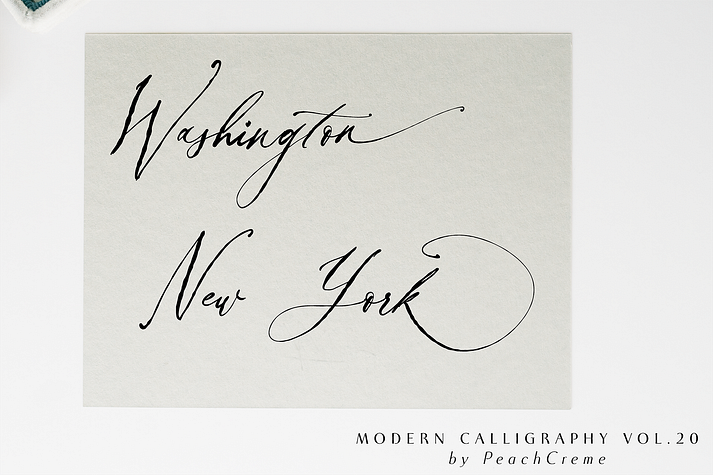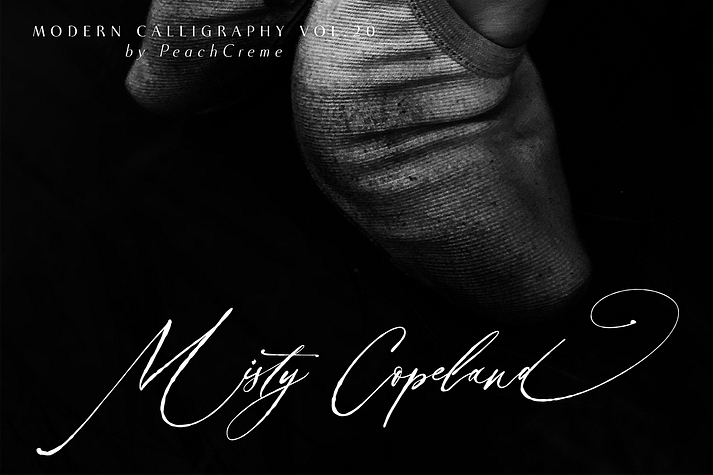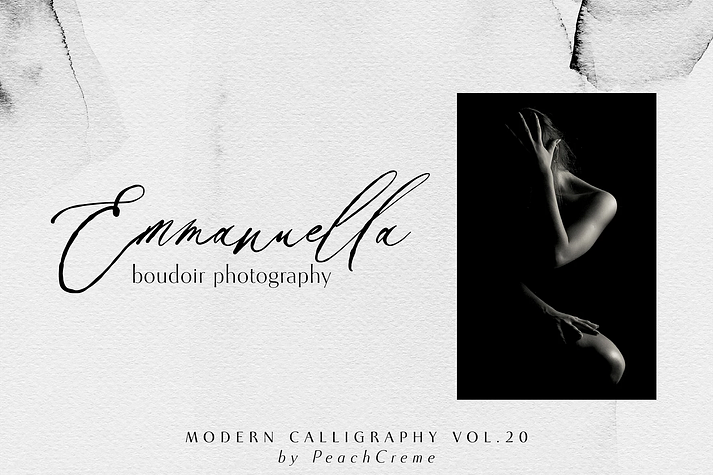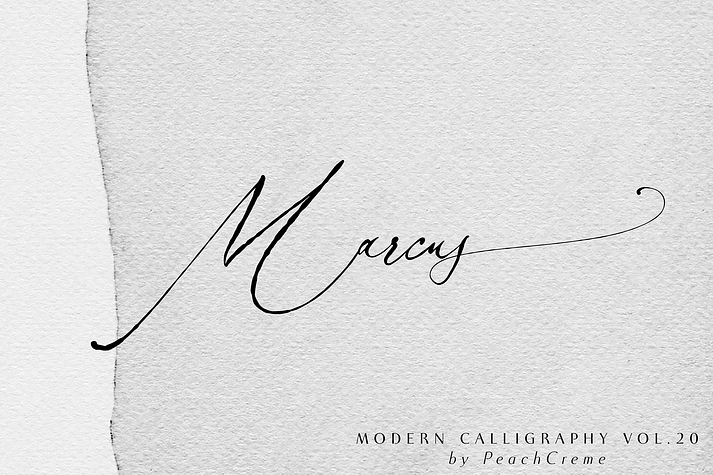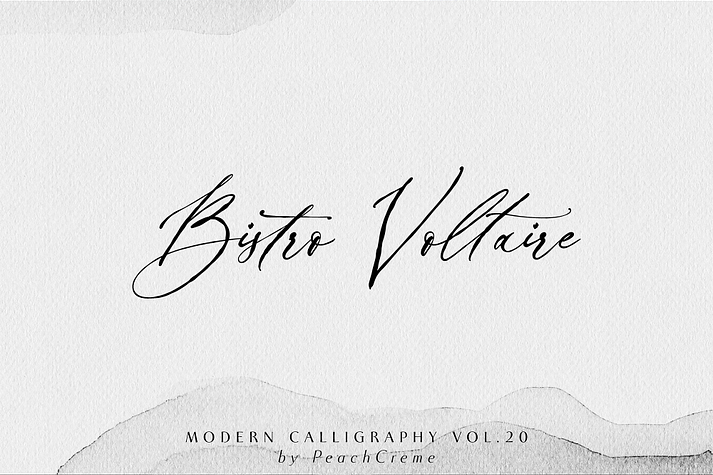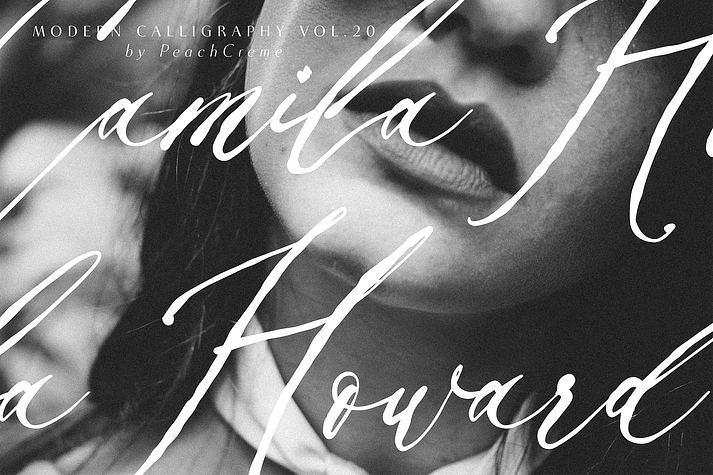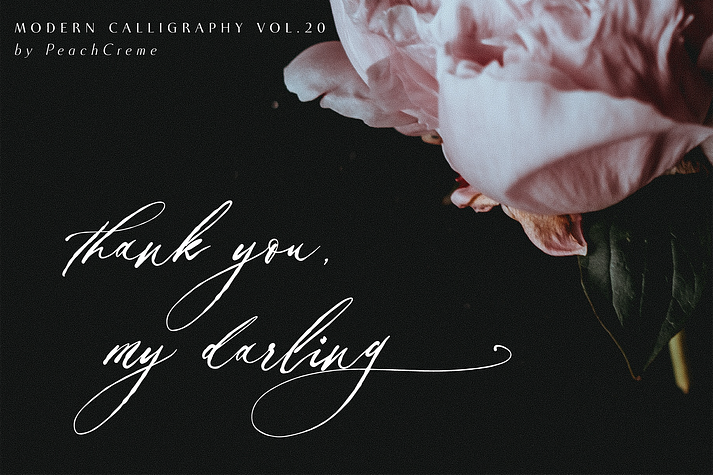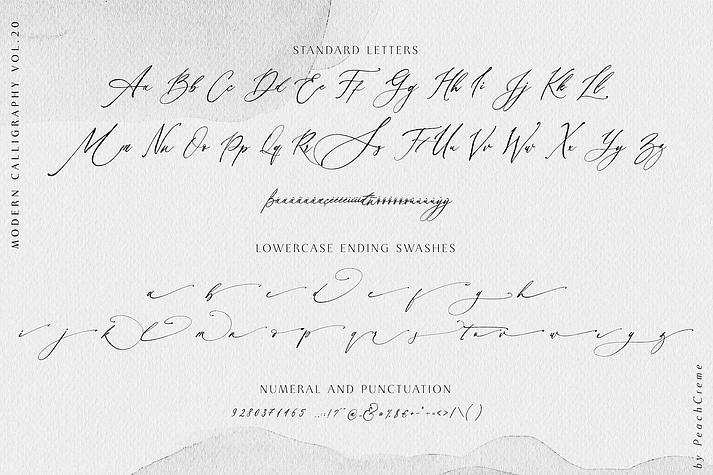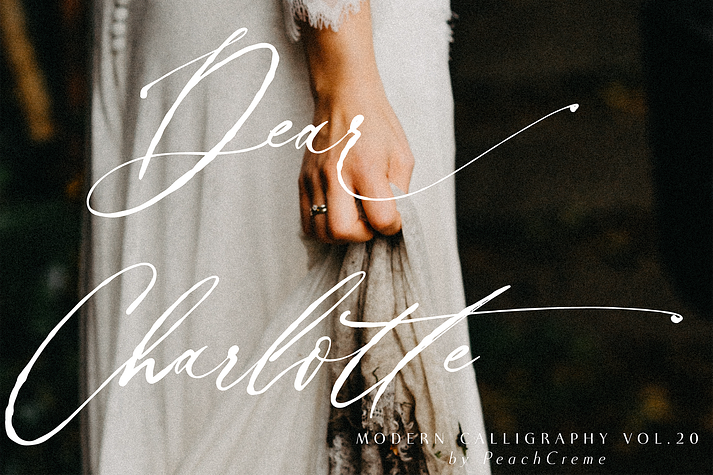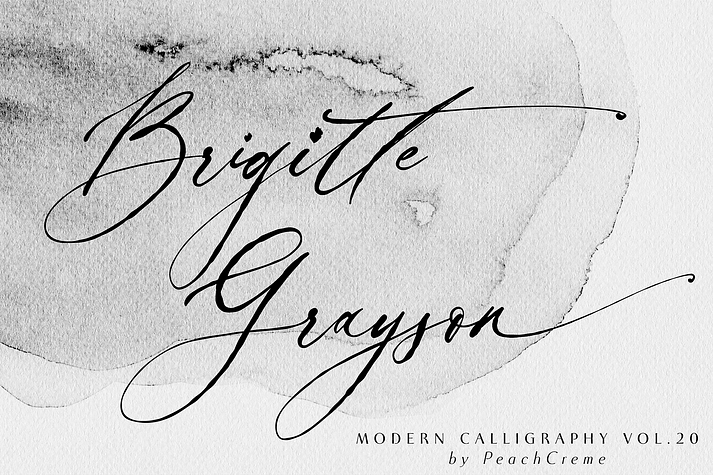
Balzak
Balzak is a script font family published by PeachCréme.
ORGANIC TYPOGRAPHY VOL.20
Ink. Messy Ink. Imperfect letters. This is about Balzak font. Or you like it, or you hate this font.
Balzak includes uppercase and lowercase letters, numerals, a large range of punctuation and ligatures. All lowercase letters include ending swashes.